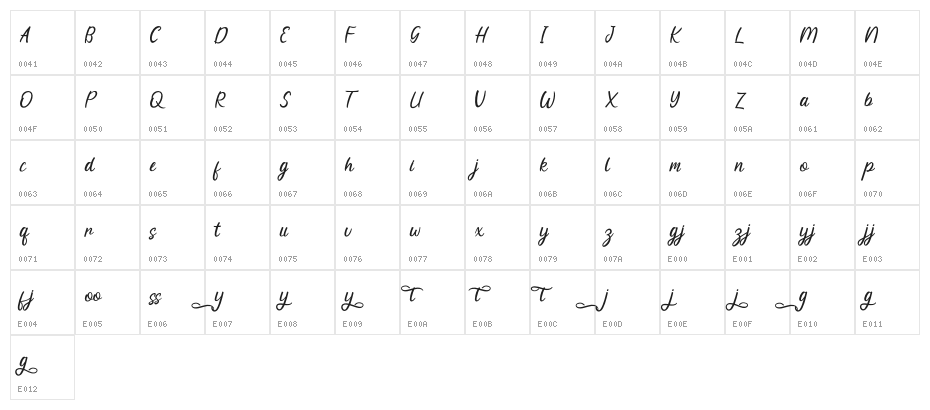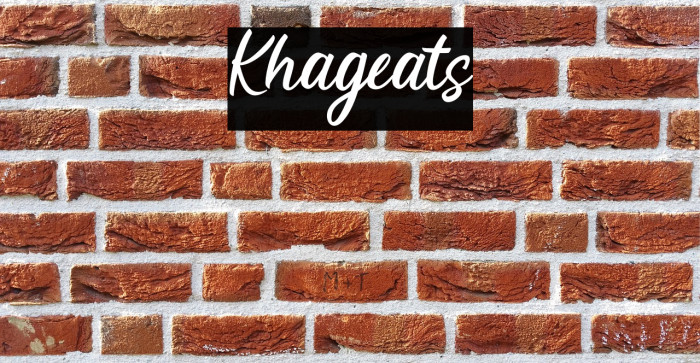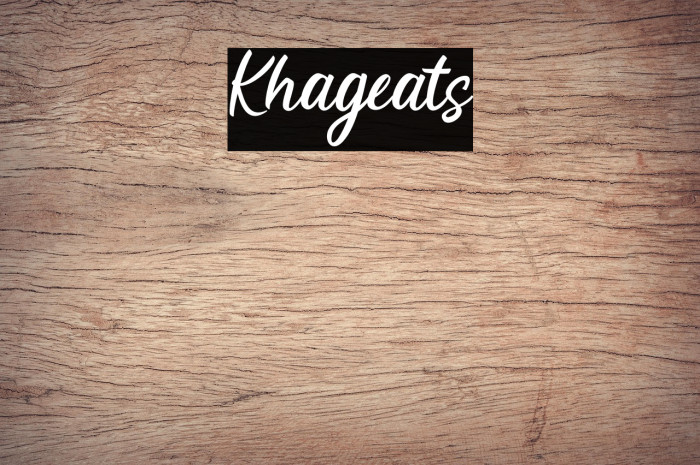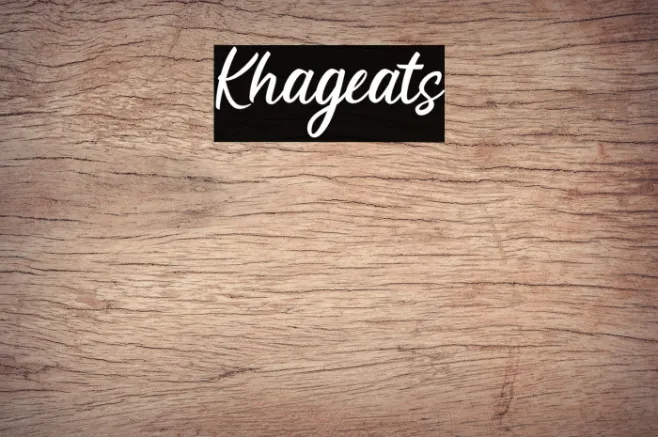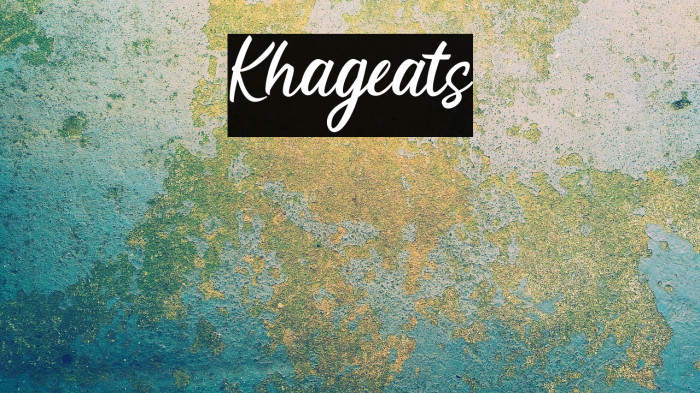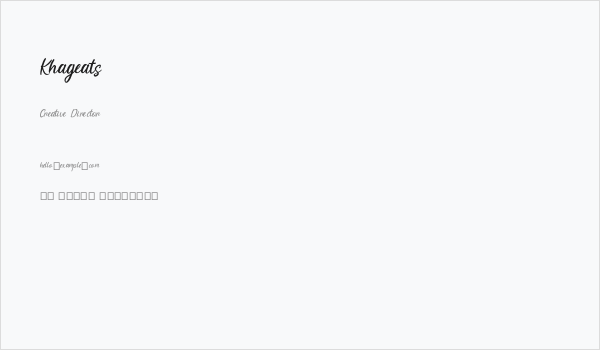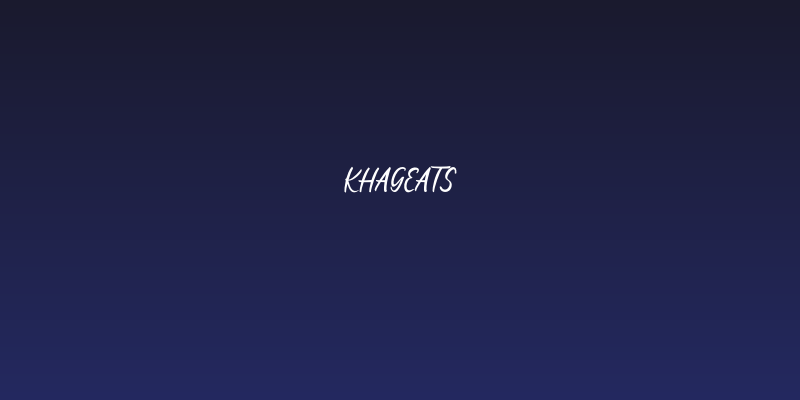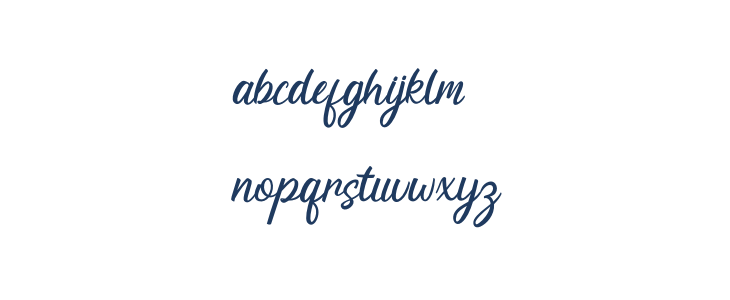
Khageats Font
Khageats Description
This font features a flowing, cursive style with elegant, sweeping curves and a handwritten appearance. The uppercase letters are bold and slightly slanted, giving a dynamic feel, while the lowercase letters maintain a consistent, fluid connection. The overall design is reminiscent of calligraphy, with a modern twist that adds a touch of sophistication. The characters are well-spaced, ensuring readability while maintaining the artistic flair. This font is perfect for projects that require a personal, yet polished touch.
Use CaseLogos, Invitations, Greeting Cards
Proposed ProjectsIdeal for wedding invitations, greeting cards, personal branding, and elegant logos.